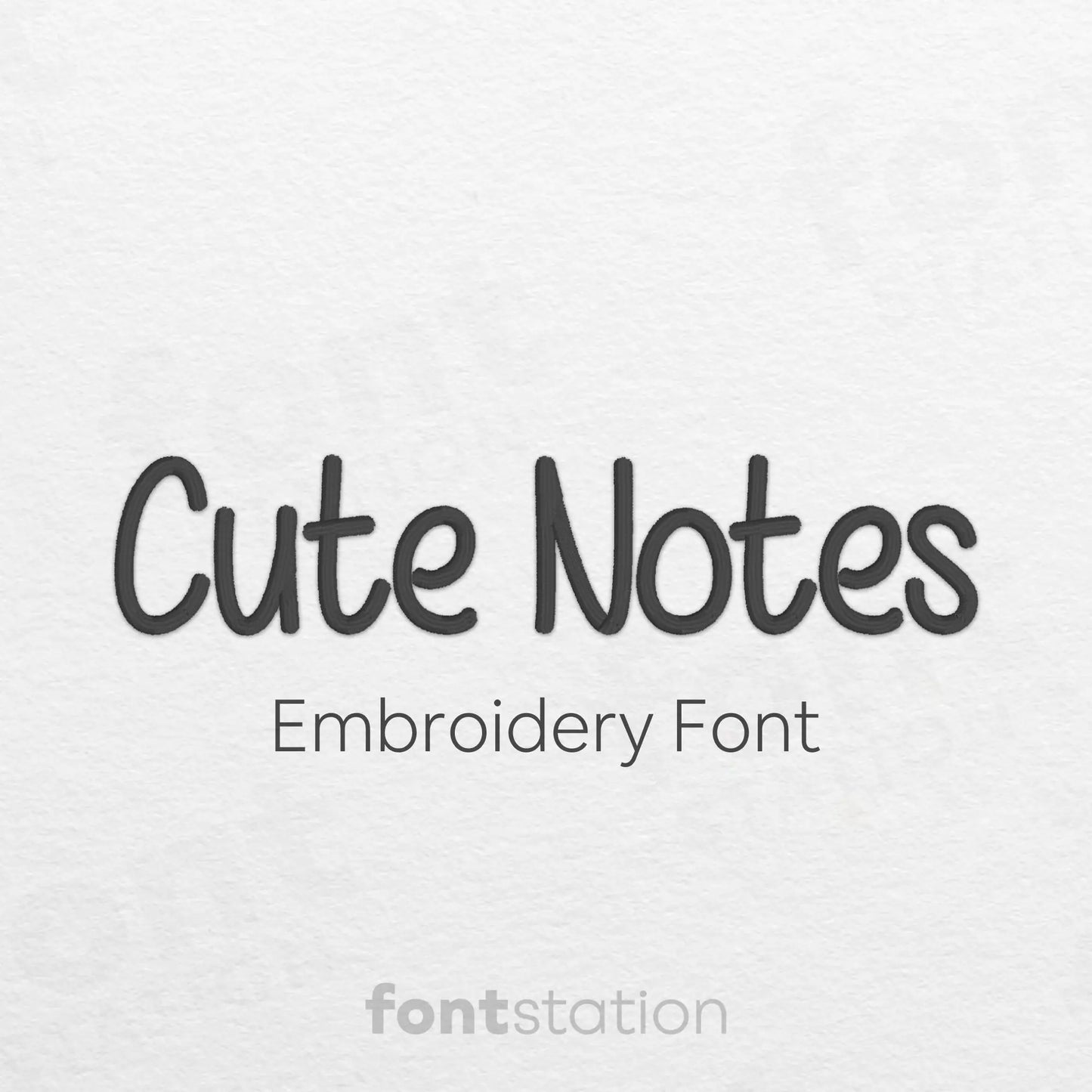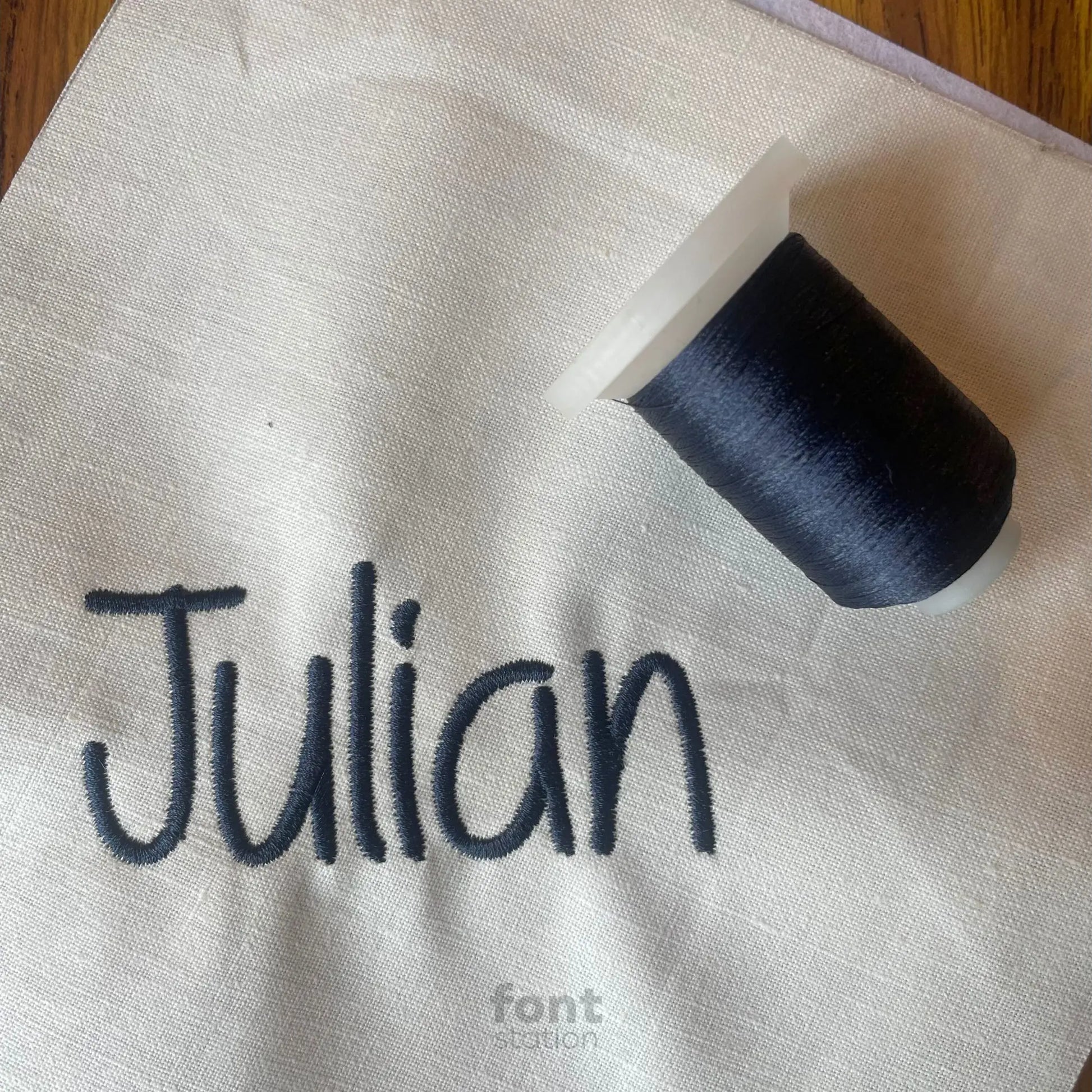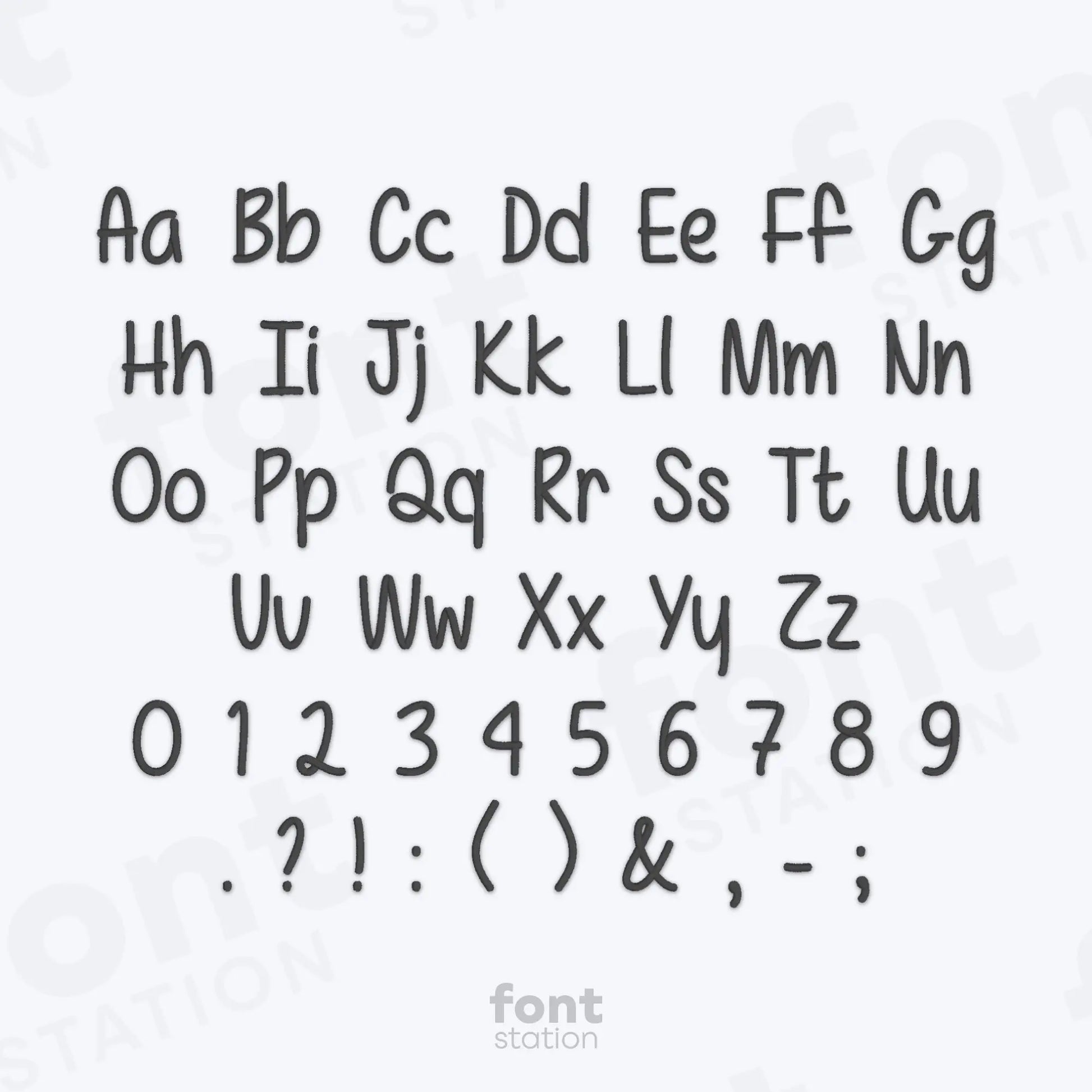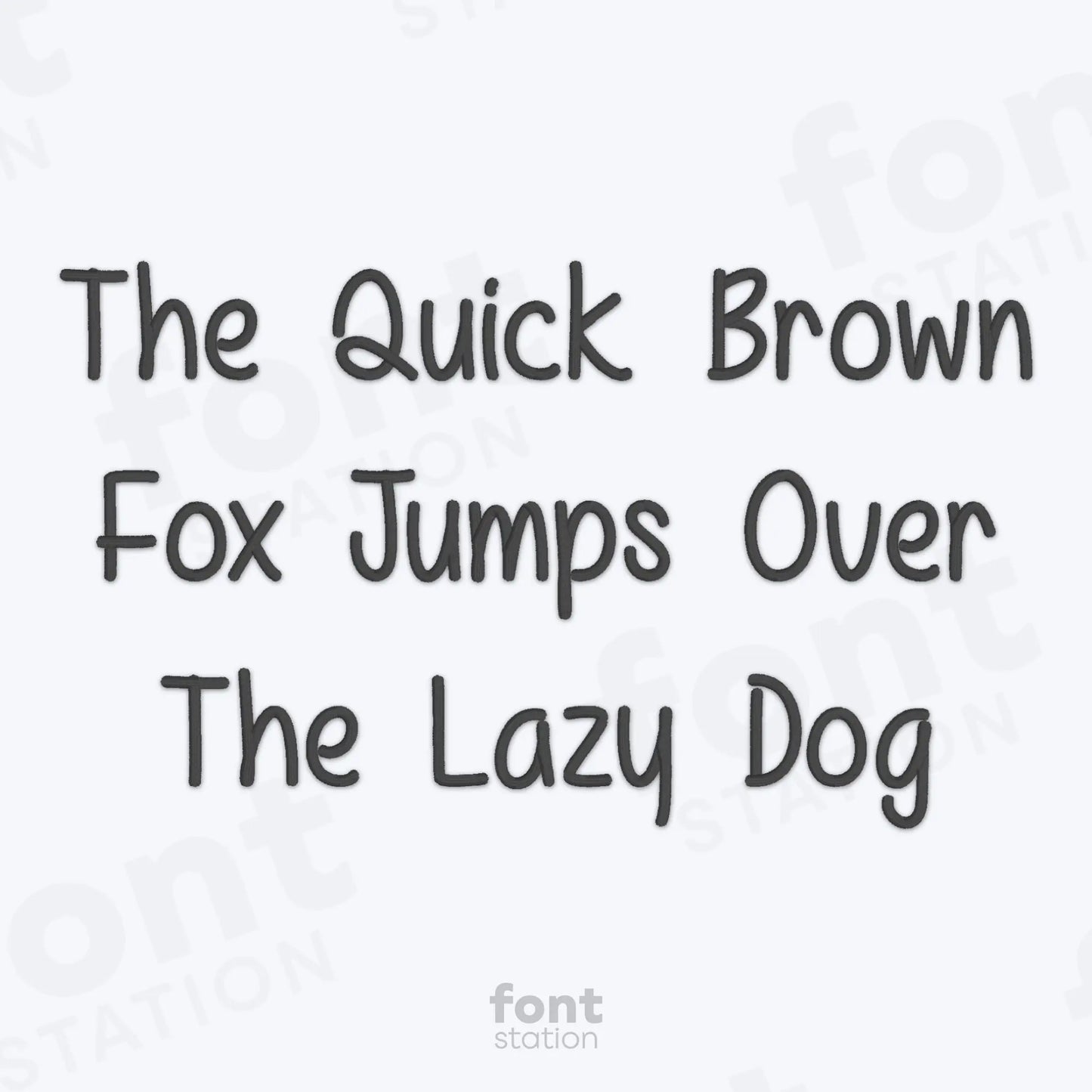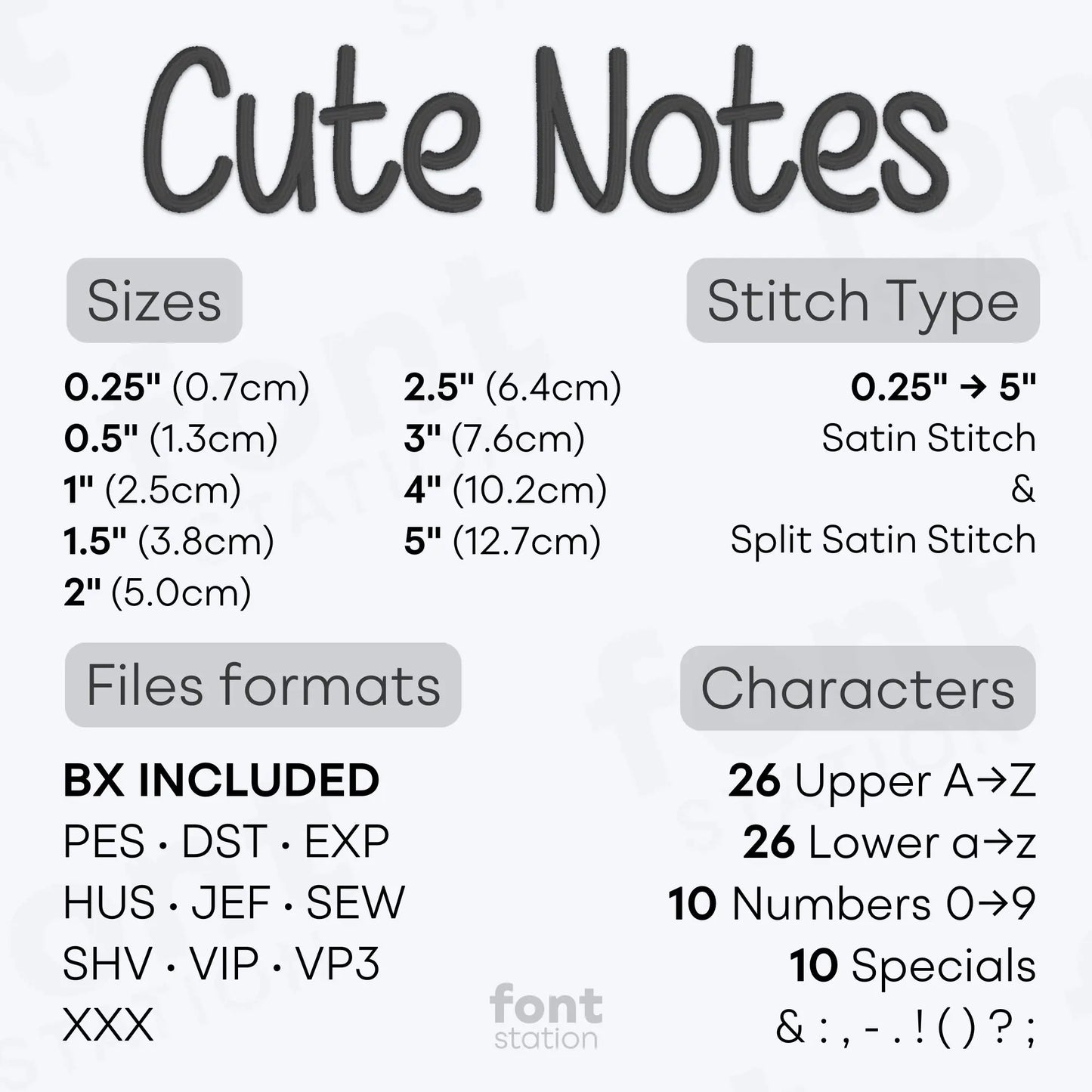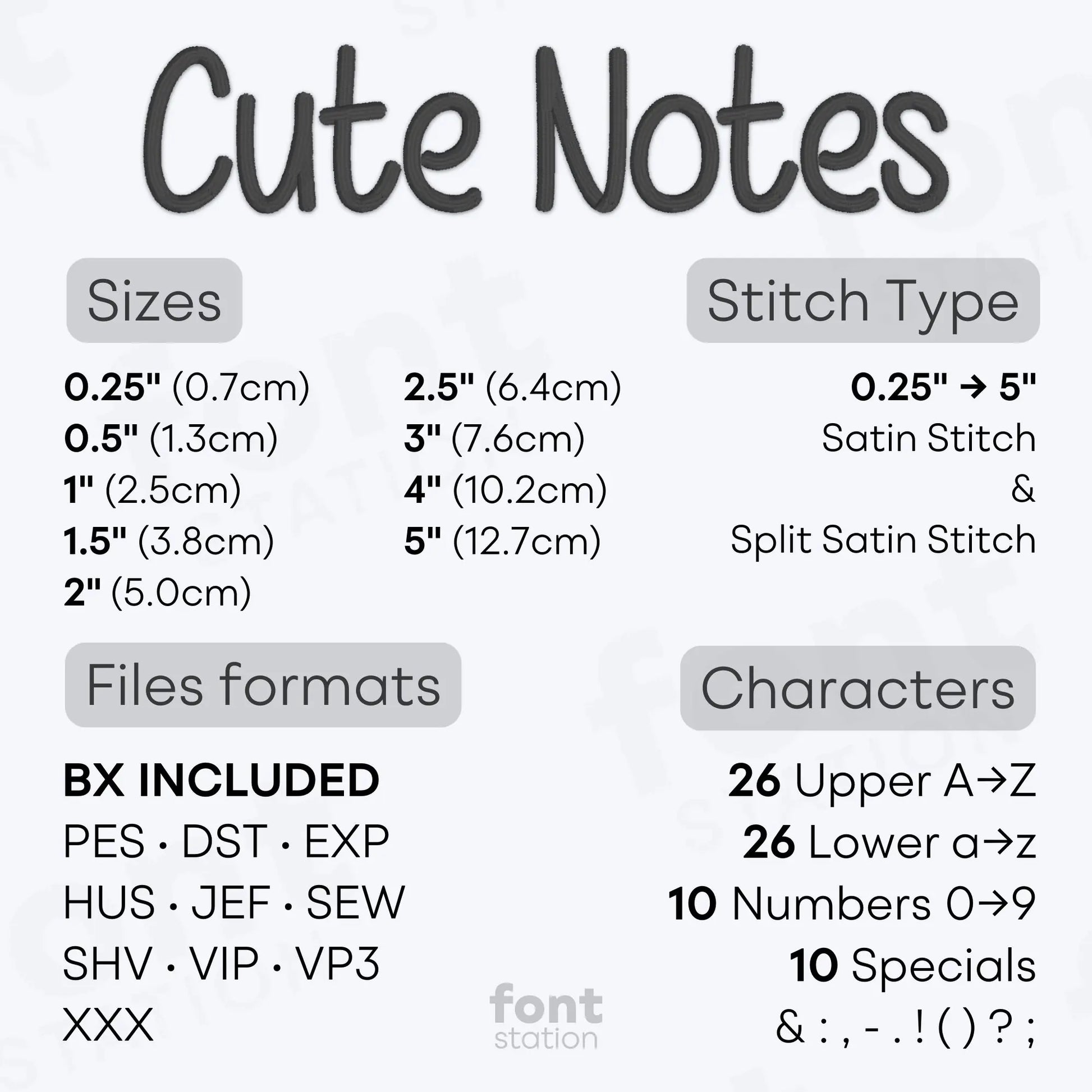
Cute Notes Embroidery Font
Introducing our Cute Notes embroidery font, a Handwritten, Cute alphabet with playful letters that stitch perfectly on your embroidery machine. Ideal for names, labels, and fun designs, it adds a cheerful touch to every project.
About the Cute Notes Embroidery Font
Characters: 26 uppercase, 26 lowercase, 10 numbers, and symbols & : , - . ! ( ) ? ;
Our Cute Notes embroidery font brings a Handwritten, Cute style to your embroidery projects.
This playful embroidery font features a fun, doodle-style alphabet with rounded, friendly letters that stitch smoothly on any embroidery machine. Perfect for names, kids’ items, and cheerful embroidery designs, it adds a warm, handmade look to every project.